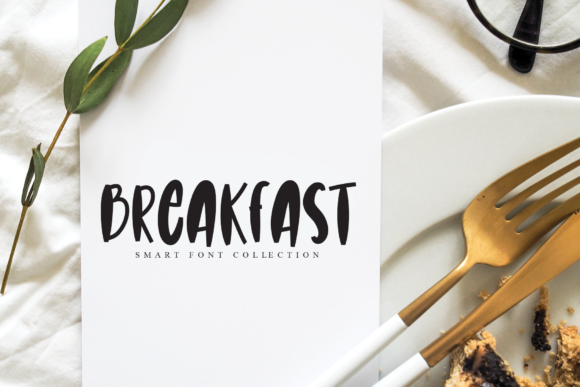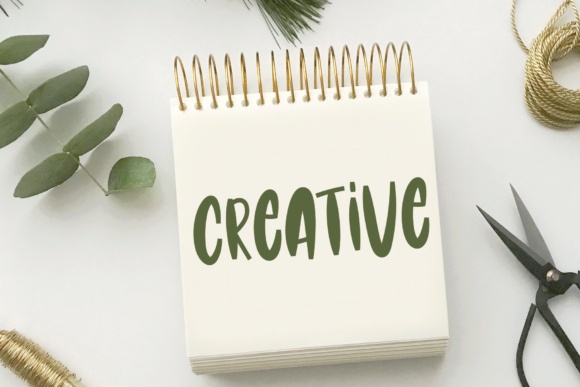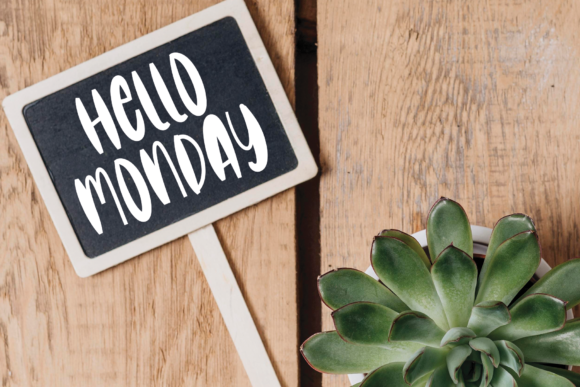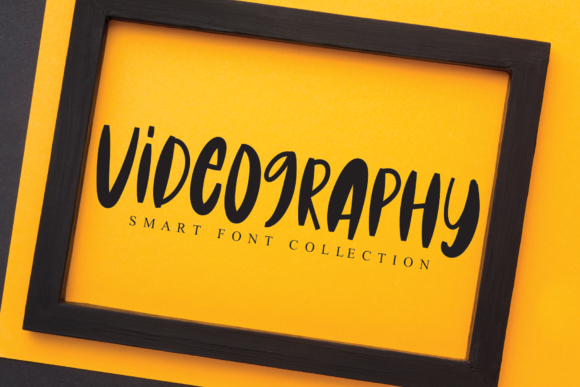
Internets Font
About Internets Font
Internets is a playful and dainty handwritten font designed with a touch of elegance in mind. With its pretty letters and modern vibes, this font will help you create the most spectacular designs!